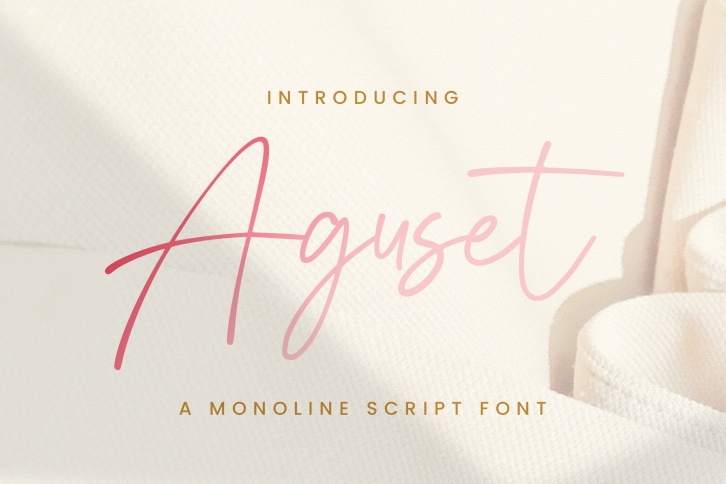
Aguset is a great font that was designed by Stringlabscreative. Imagine the amount of combinations you can create using this font! The archive is 3.5 MB and it was released on March 31, 2021. Aguset looks beautiful on wedding invitations, greeting cards, logos, posters, labels, t-shirt designs, logos, business cards and is perfect for use in ink or watercolor works, fashion, magazines, packaging and food menus, children's books and more!